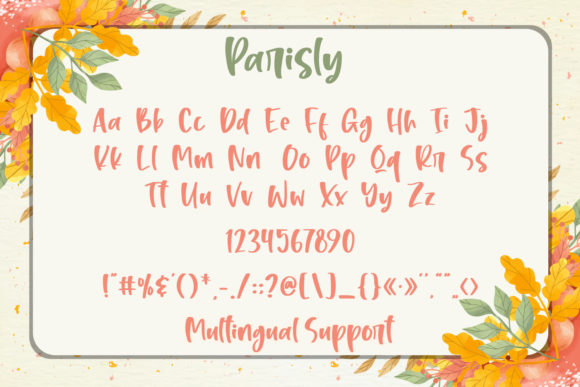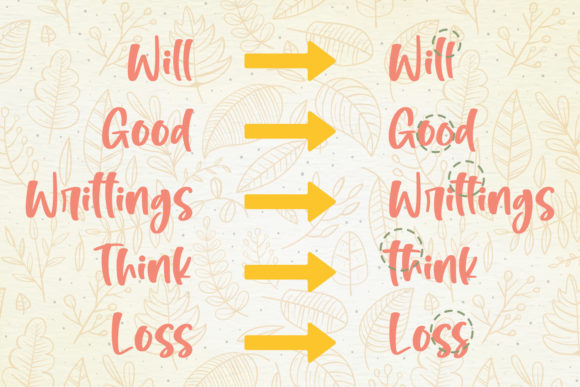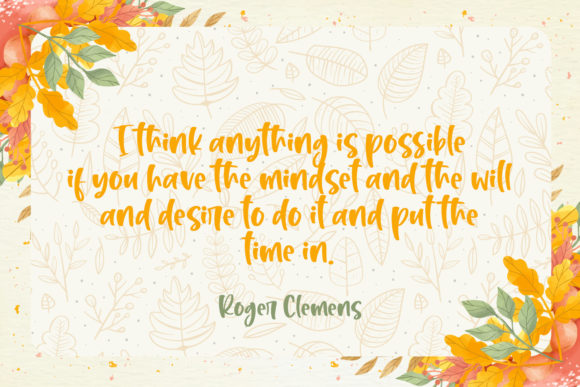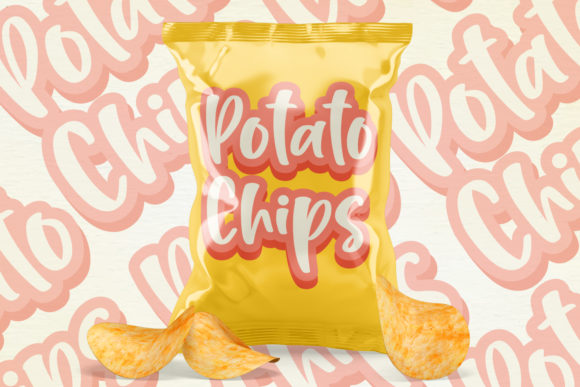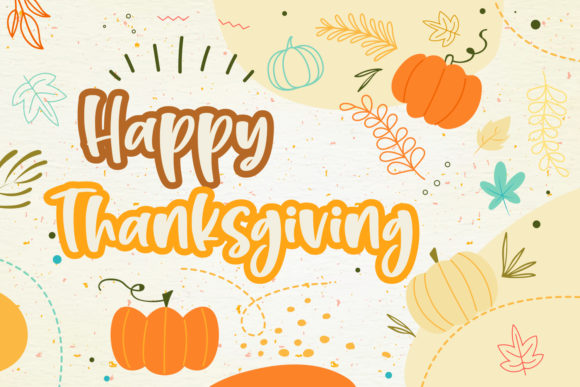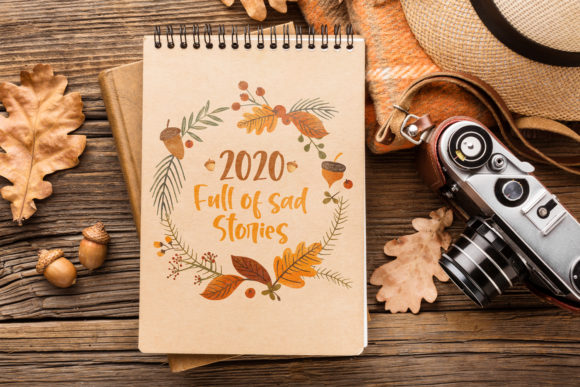
Parisly Font
About Parisly Font
Parisly is a cute and playful handwritten font. Joyful and relaxed, this font is suitable for a variety of projects such as cards, calendars, t-shirts, quotes, Instagram posts, logos, branding and so much more.